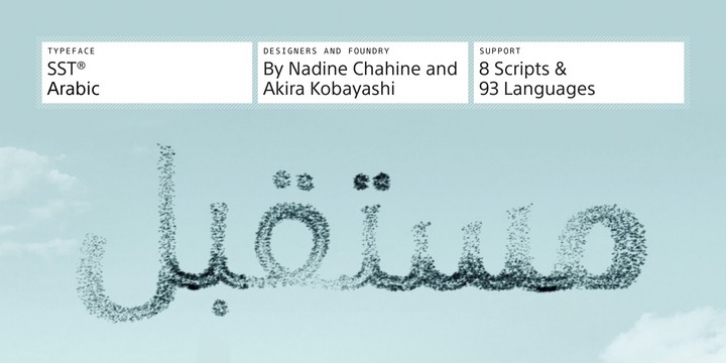
Publisher: Monotype
SST Arabic was designed by Akira Kobayashi, Nadine Chahine and published by Monotype. SST Arabic contains 4 styles and family package options.
Designed for global branding and supporting 93 languages, the SST® typefaces blend the organic readability and controlled structure of modern sans serif designs. In combining these attributes, the SST family is understated, versatile – and sure to be a timeless design.
The SST Arabic family has 4 fonts in total. It spans four weights from light to bold.
SST's subtle design traits provide a quietly handsome and consistently friendly typographic presence that can be used for just about any typographic application. Broad range branding applicability combined with coverage for almost a hundred languages, makes SST one of the most widely accessible and usable typefaces available.
Originally designed in partnership with the global consumer brand, Sony, the SST family is one of the most comprehensive type families available. Since extensive multi-lingual support was a critical design goal from the beginning, Akira Kobayashi, Monotype type director and primary designer on the project, turned to a network of local designers around the world for their individual language expertise. As a result, the details – which could be as subtle as stroke curvature and width – are consistent across Latin, Greek, Cyrillic, Arabic and multiple Asian languages.
SST performs equally well in print and on-screen and the designs can be used at very small sizes in packaging and catalogs; while massive print headlines – even complicated wayfinding projects pose no stumbling blocks to the family's typographic dexterity.
· SST Arabic Light
· SST Arabic Roman
· SST Arabic Medium
· SST Arabic Bold